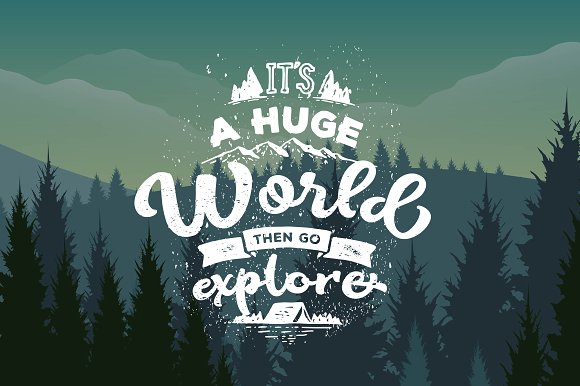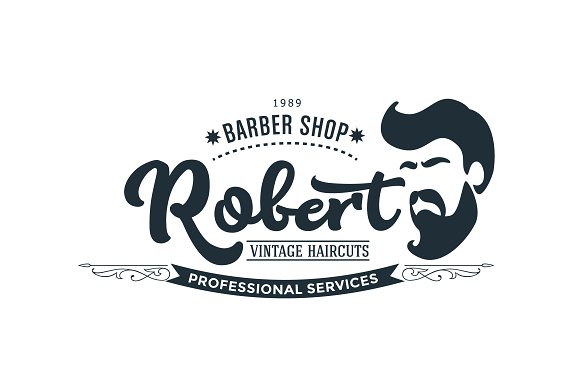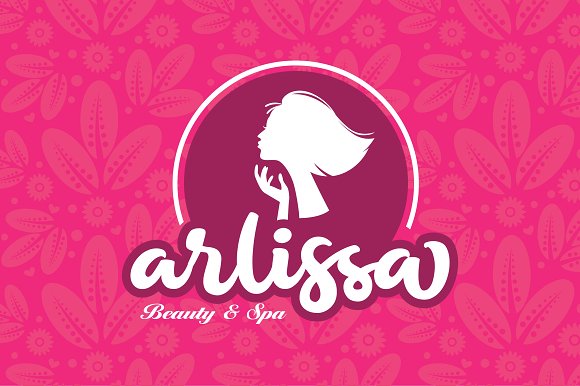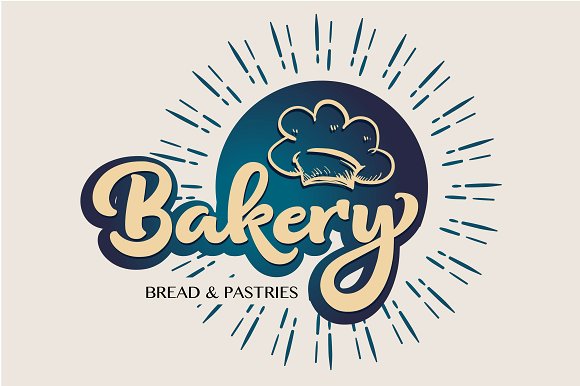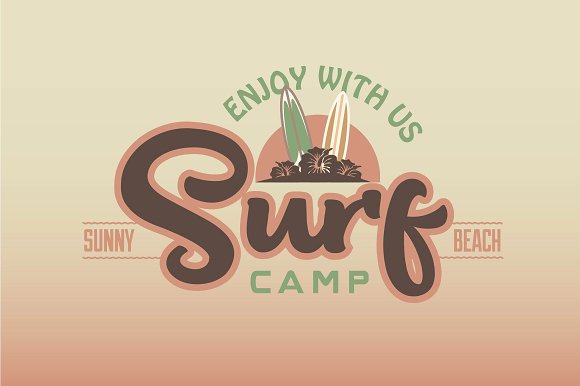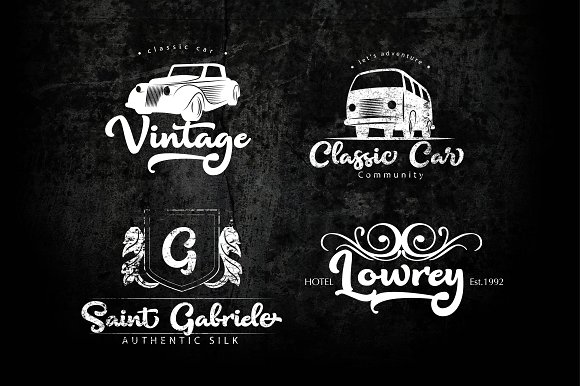
Introduction to Klibeuth Font
Klibeuth, a beautiful handwritten script.
It’s a fluid font that works well in many different types of projects This professional looking font is easy to read and works well for marketing & branding as well as craft projects.